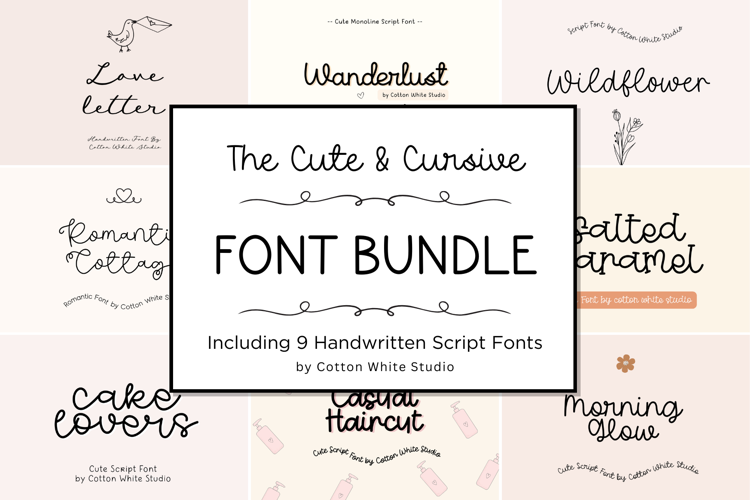
The Cute and Cursive Font Bundle
This bundle gathers 9 stunning script fonts for you to use in your upcoming projects.
Fonts Included:
1. Wanderlust
2. Morning Glow
3. Romantic Cottage
4. Love Letter
5. Casual Haircut
6. Salted Caramel
7. Cake Lover
8. Wild Flower
9. Fun Times & Dreams
Perfect for digital notes, planners, logo, web design, notebooks, journals, labels, blogs, quotes, greeting cards, tea towels, apparel, pillows, mugs, toys, posters, baby clothing, picture books and so much more... basically anything that requires a cute handwritten look! 😍